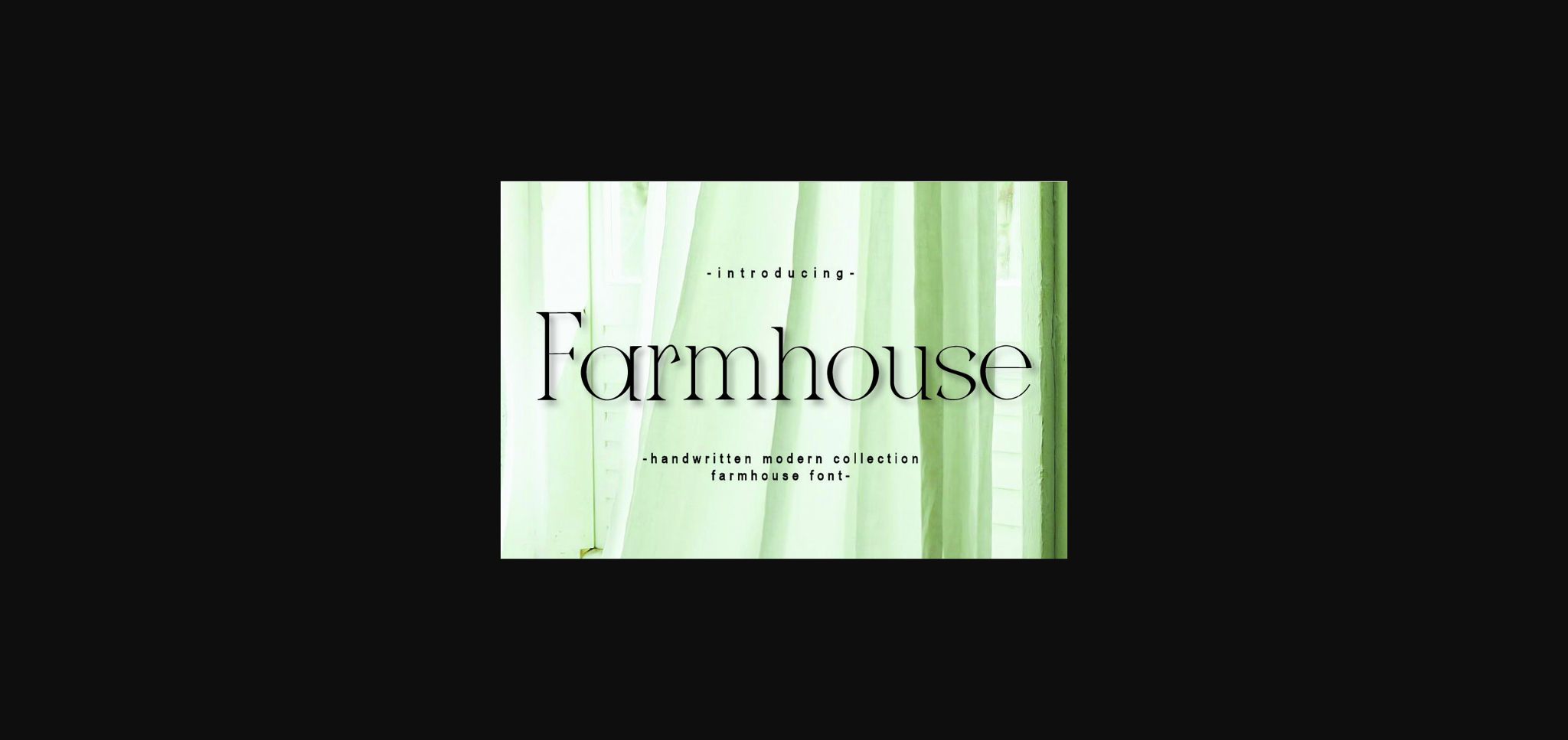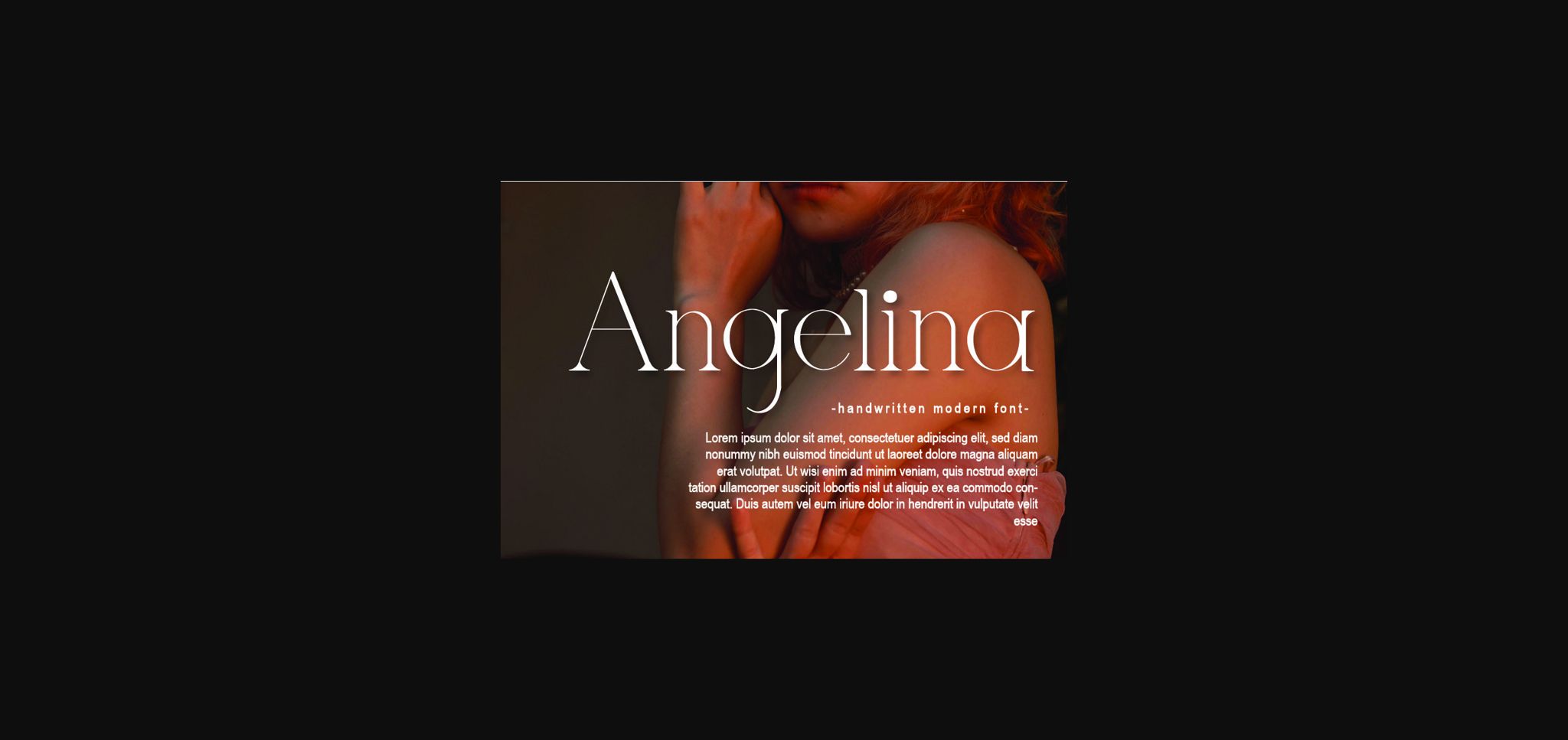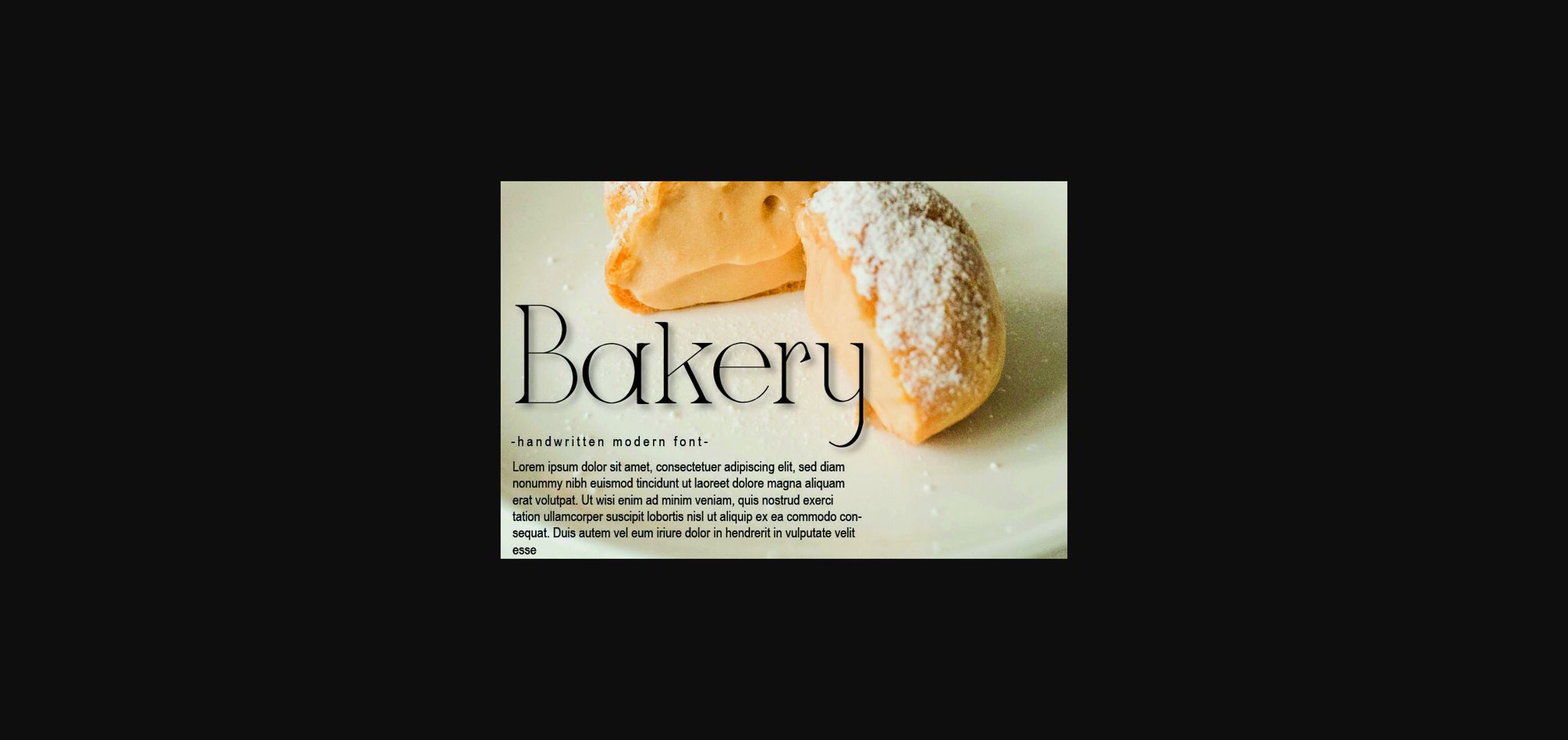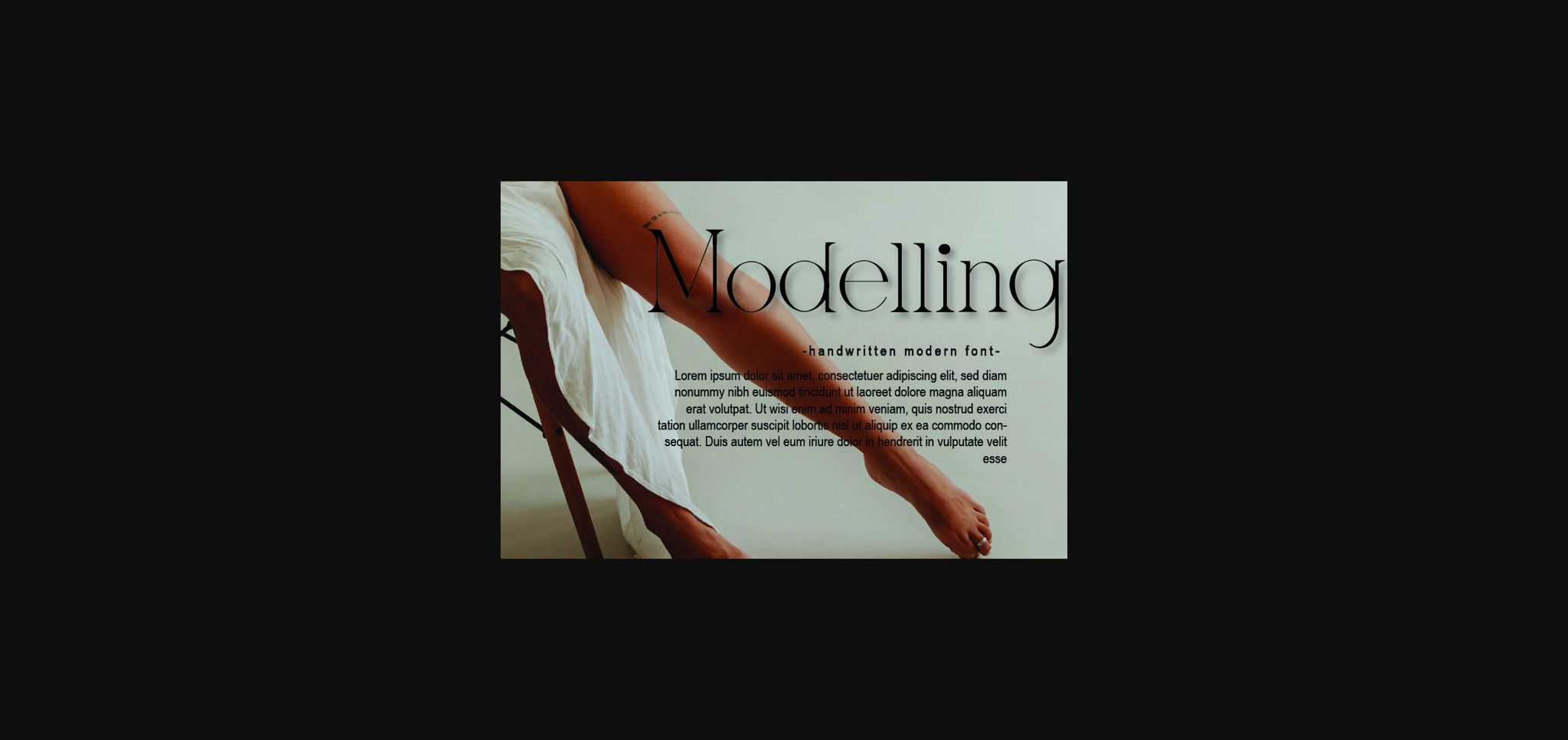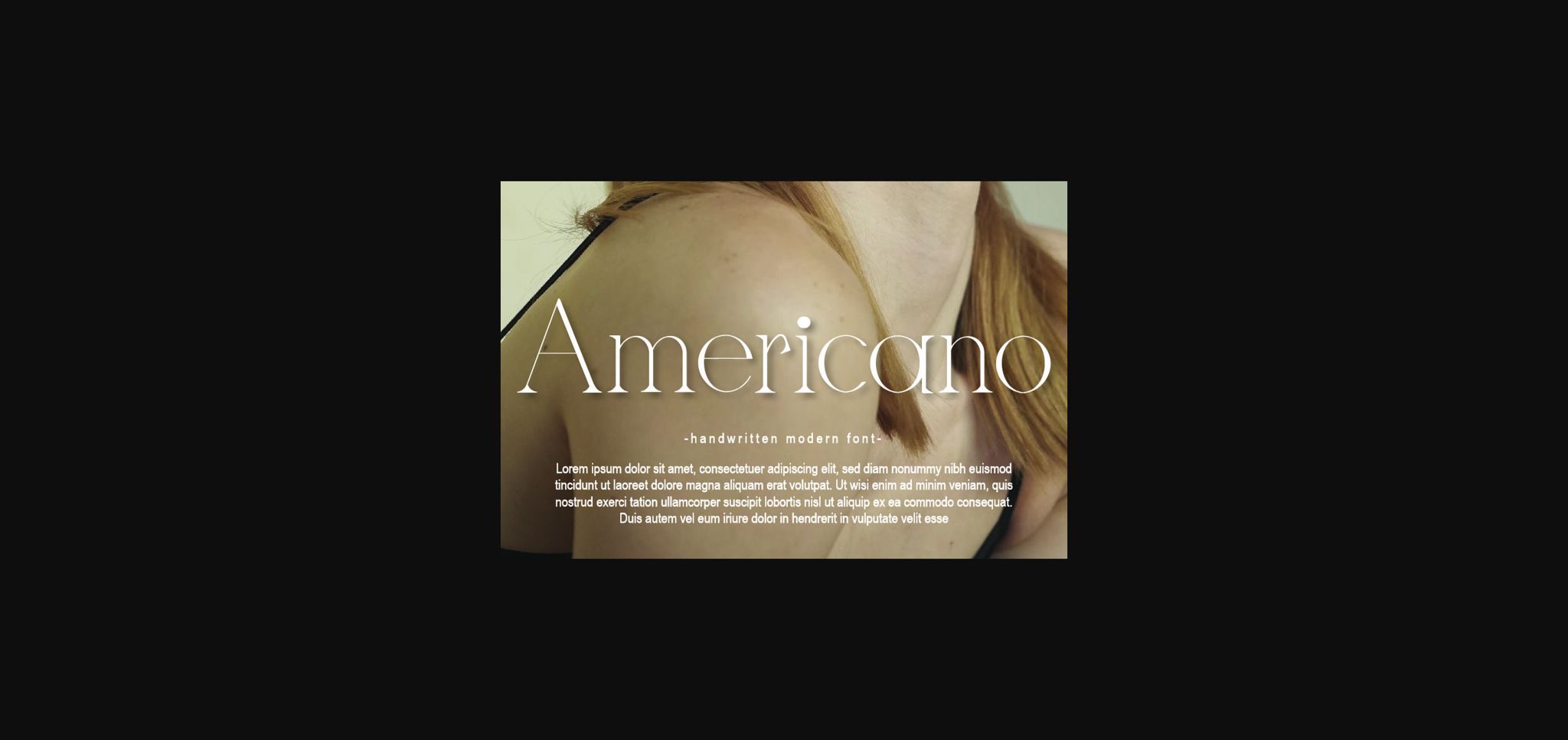
HomeSans Serif FontsFarmhouse Font Sans Serif Fonts Farmhouse Font FacebookXPinterestWhatsApp 1 of 7 ... Farmhouse Font Poster 2... Farmhouse Font Poster 3... Farmhouse Font Poster 4... Farmhouse Font Poster 5... Farmhouse Font Poster 6... Farmhouse Font Poster 7... About Farmhouse Font Farmhouse is an elegant thin line font that looks modern, futuristic and looks luxurious. Add this font to your creative ideas, and see how it stands out and looks perfect for your projects!Use this font to see its beauty! DOWNLOAD NOW People also explored Classmates Font Agil Script – Handwritten Font Maybey Font Butter Font Memories with You Font Brulee Font Dustria Font Sweet Farmhouse Font Simple Font 285 0 TagsFarmhouse Font Previous articleKinda FontNext articleNolady Font LEAVE A REPLY Cancel reply Comment: Please enter your comment! Name:* Please enter your name here Email:* You have entered an incorrect email address! Please enter your email address here Website: Save my name, email, and website in this browser for the next time I comment. Personal Use Free Child Witch Personal Use Free Read more about this font Satori Personal Use Free Read more about this font Ontel Personal Use Free Read more about this font Cottage Personal Use Free Read more about this font BLOG How to Cut Any Font on Cricut: Convert a Font to SVG (Free) Turn any font into a clean SVG so it cuts crisp on Cricut - a quick 3-step workflow using a free font-to-SVG tool. How to Install and Use Fonts on Windows, macOS, and Web Projects Top 7 Google Fonts Alternatives for Faster and Privacy-Friendly Web Design (2025) Best Fonts for T-Shirt Design – Top 2025 Picks